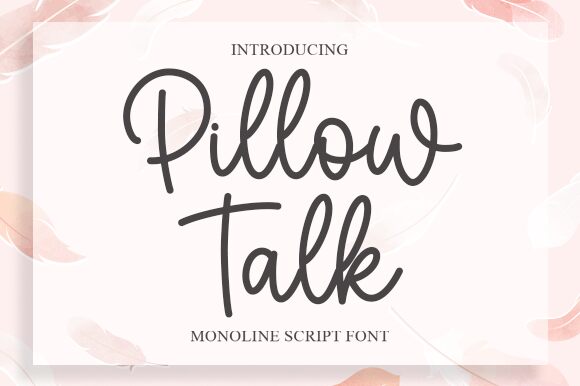
Pillow Talk
Pillow Talk, the latest monoline handwritten semi-light font from Graphix Line Studio, offers a perfect balance of elegance and simplicity. Its charming curves and smooth strokes add a personal touch to any project. Ideal for wedding invitations, greeting cards, branding materials or any designs that require a touch of playfulness. Pillow Talk is versatile enough to be used in both digital and print media. So whether it's designing a beautiful website or creating poster art for your next event, this font has got you covered! Give your projects a unique personality with Pillow Talk - the perfect addition to any designer's toolkit.